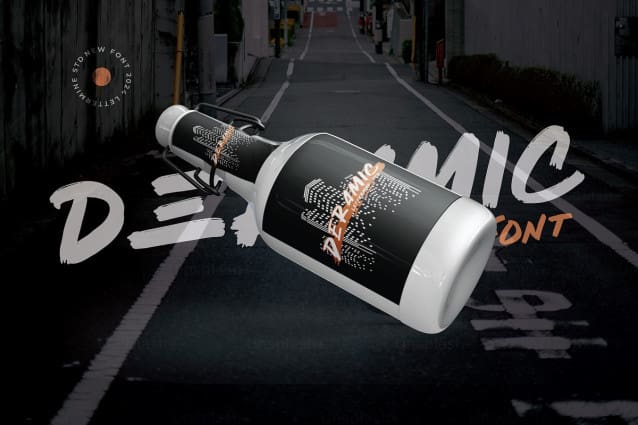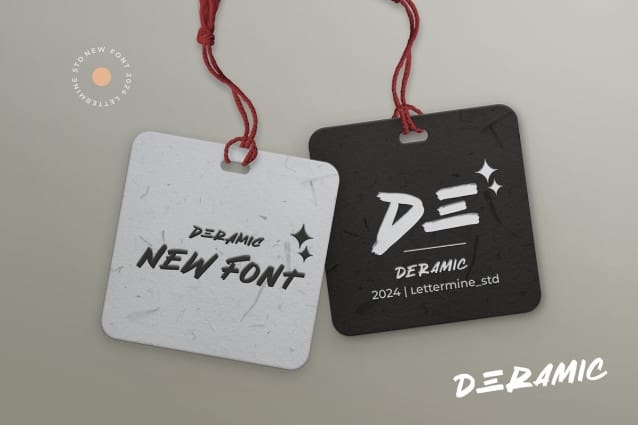
Deramic Brush Font
Deramic Brush Font a stylish and versatile brush font designed to bring a touch of elegance to your projects. Perfect for a variety of creative uses!